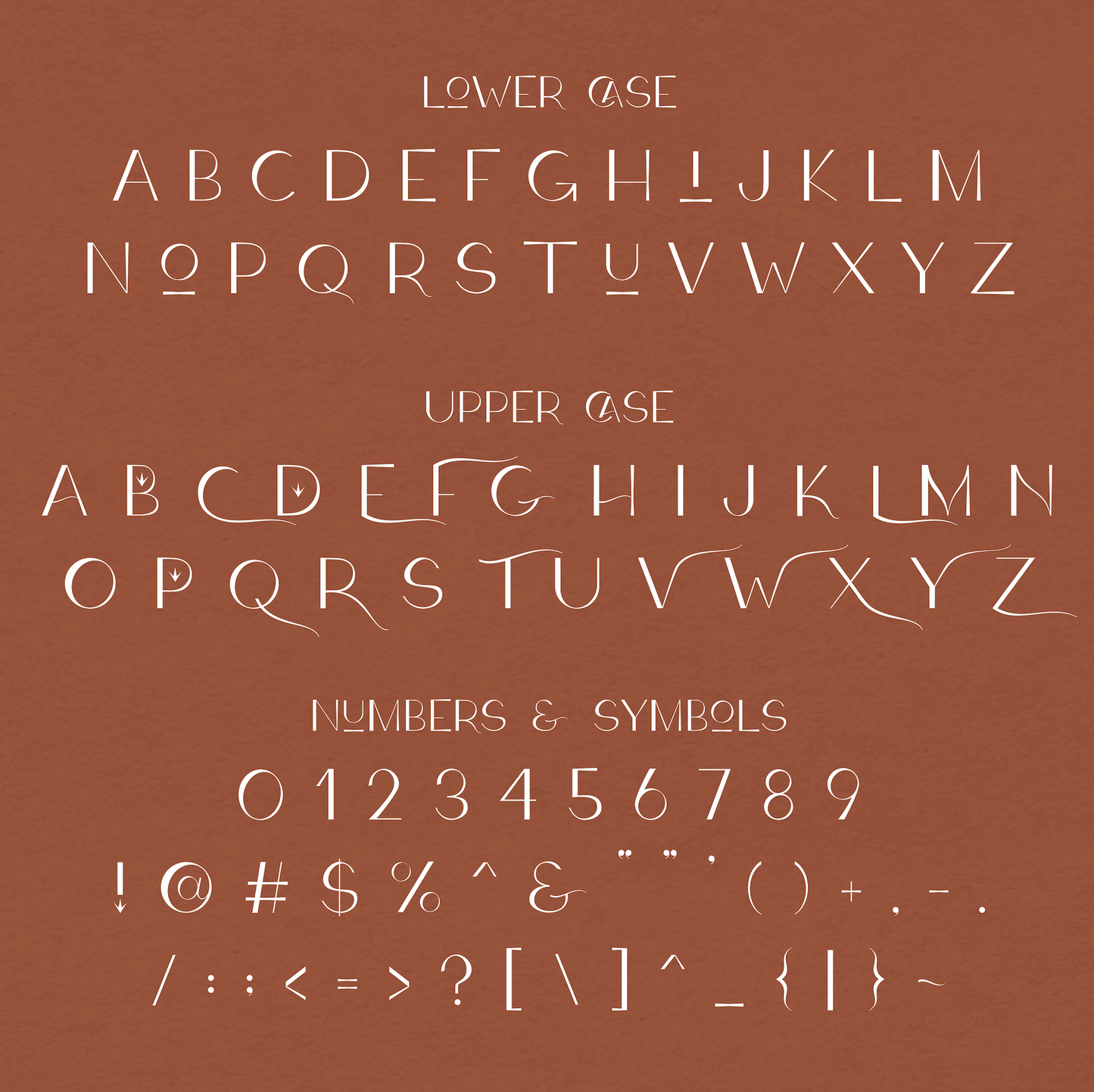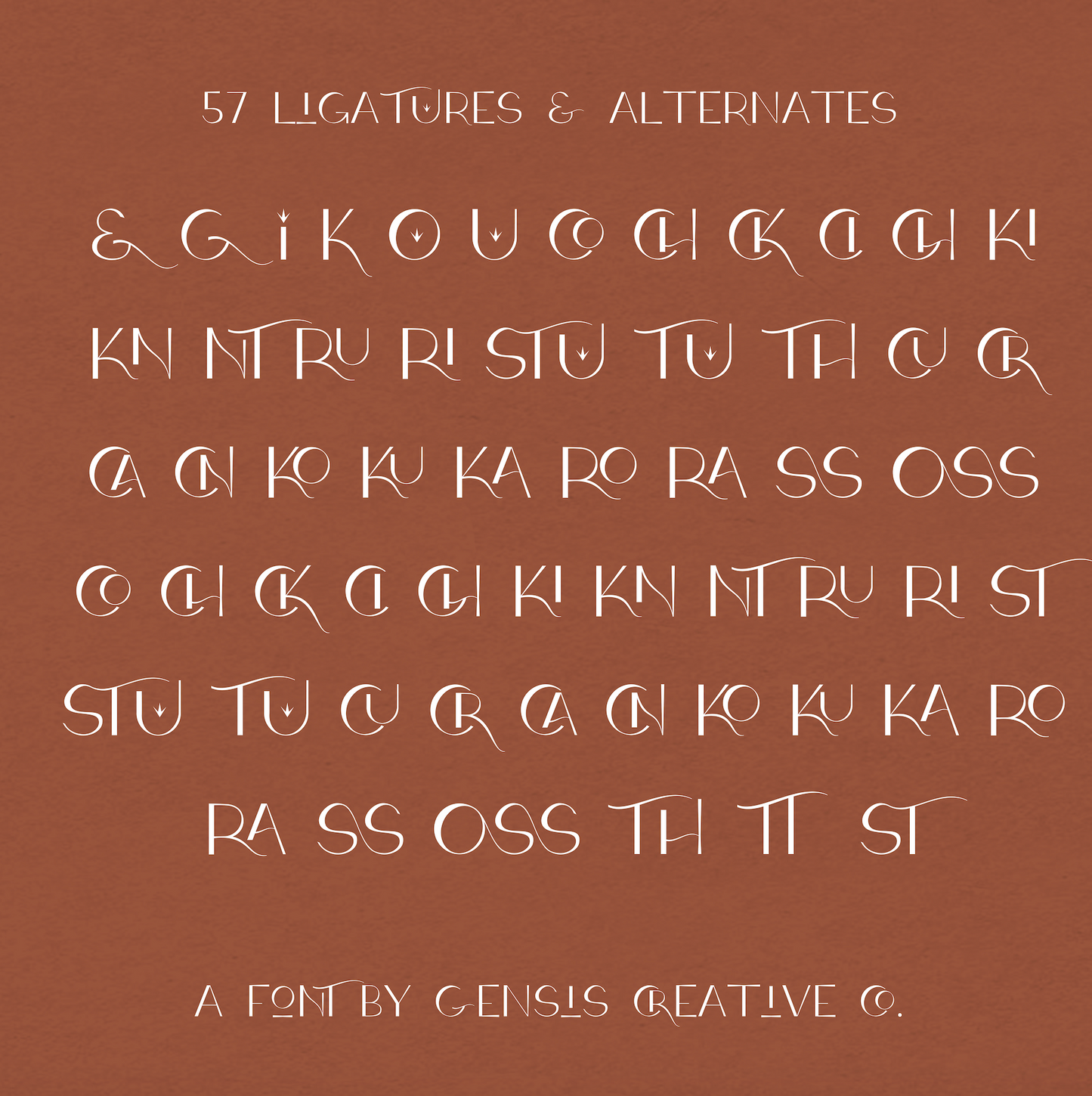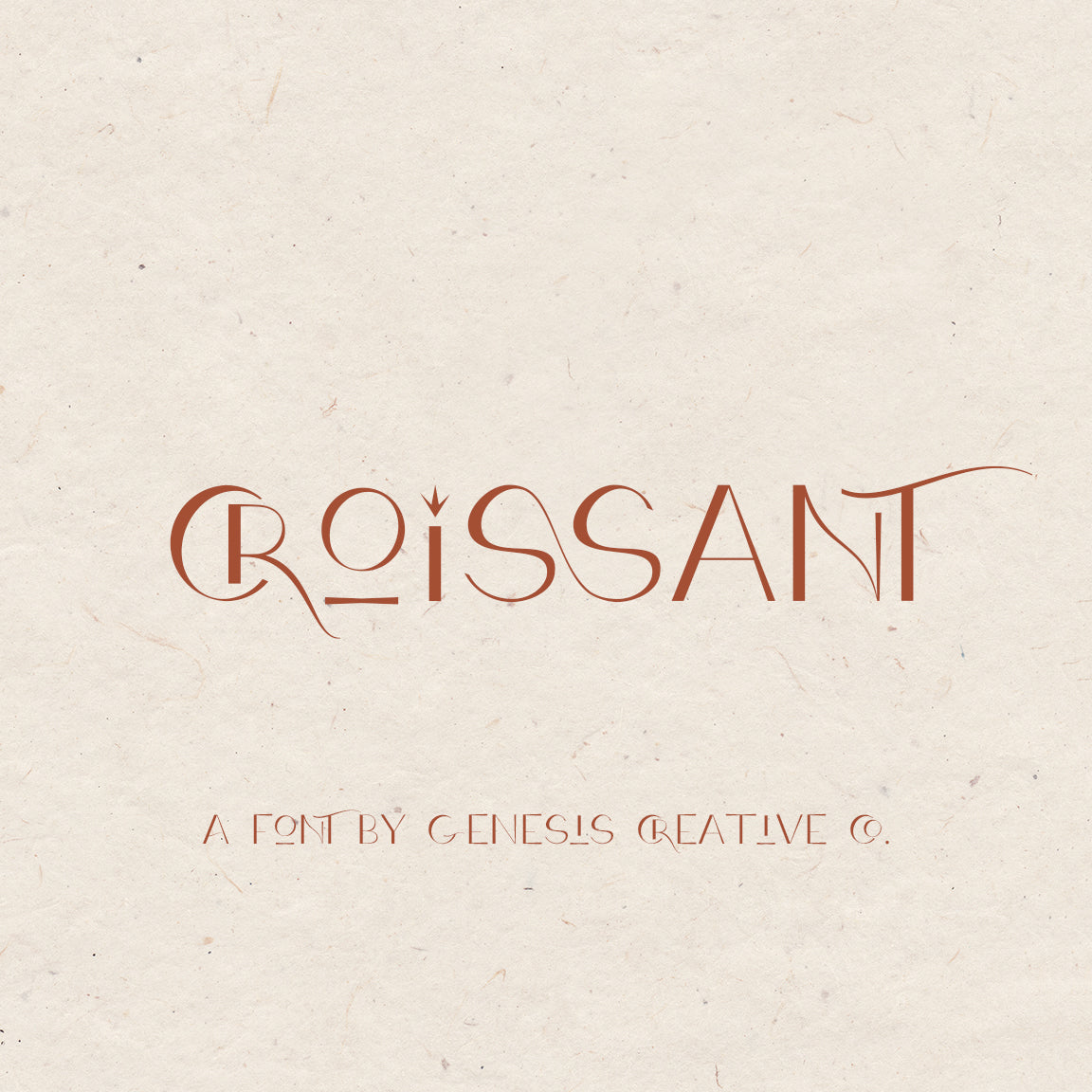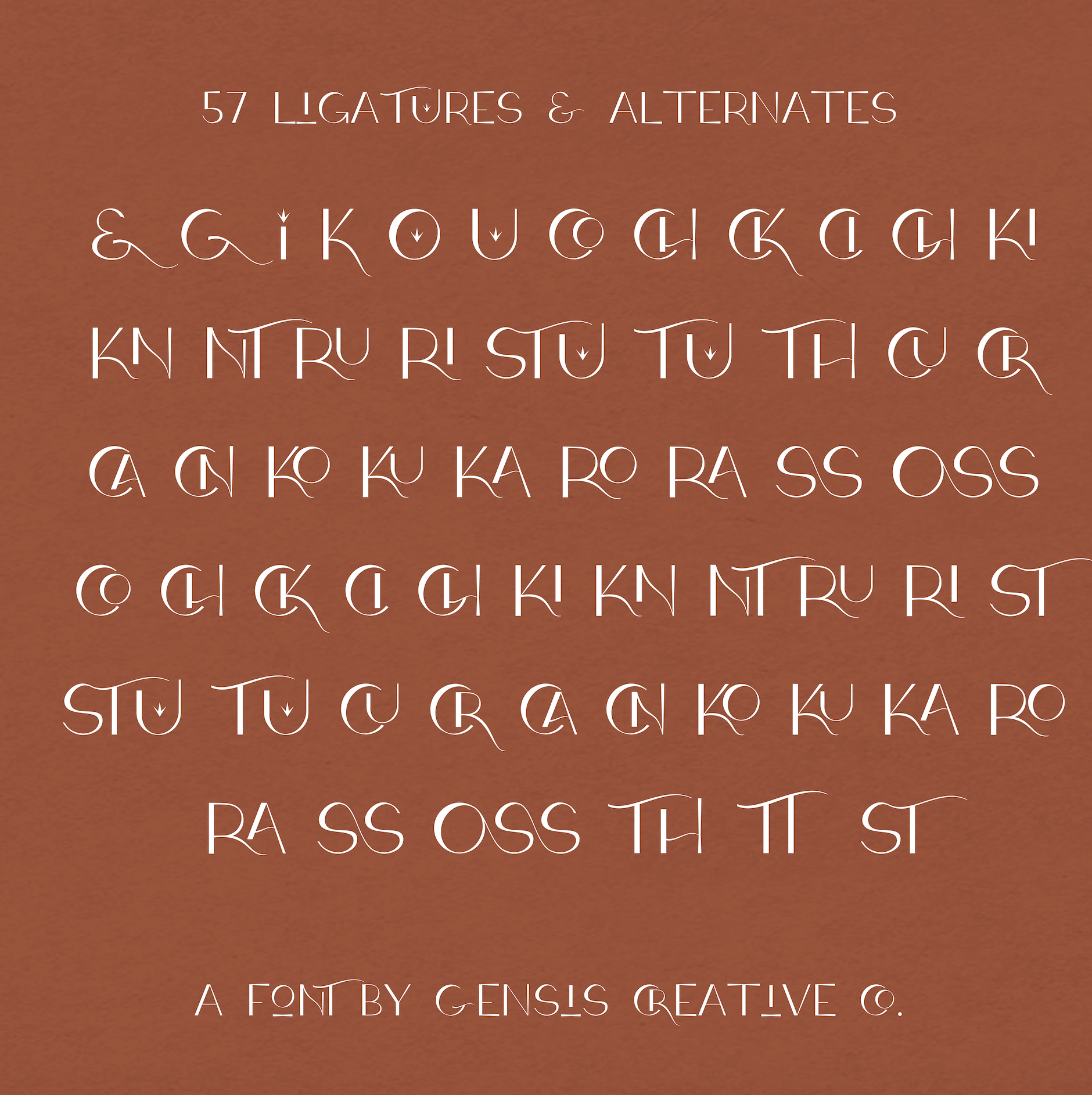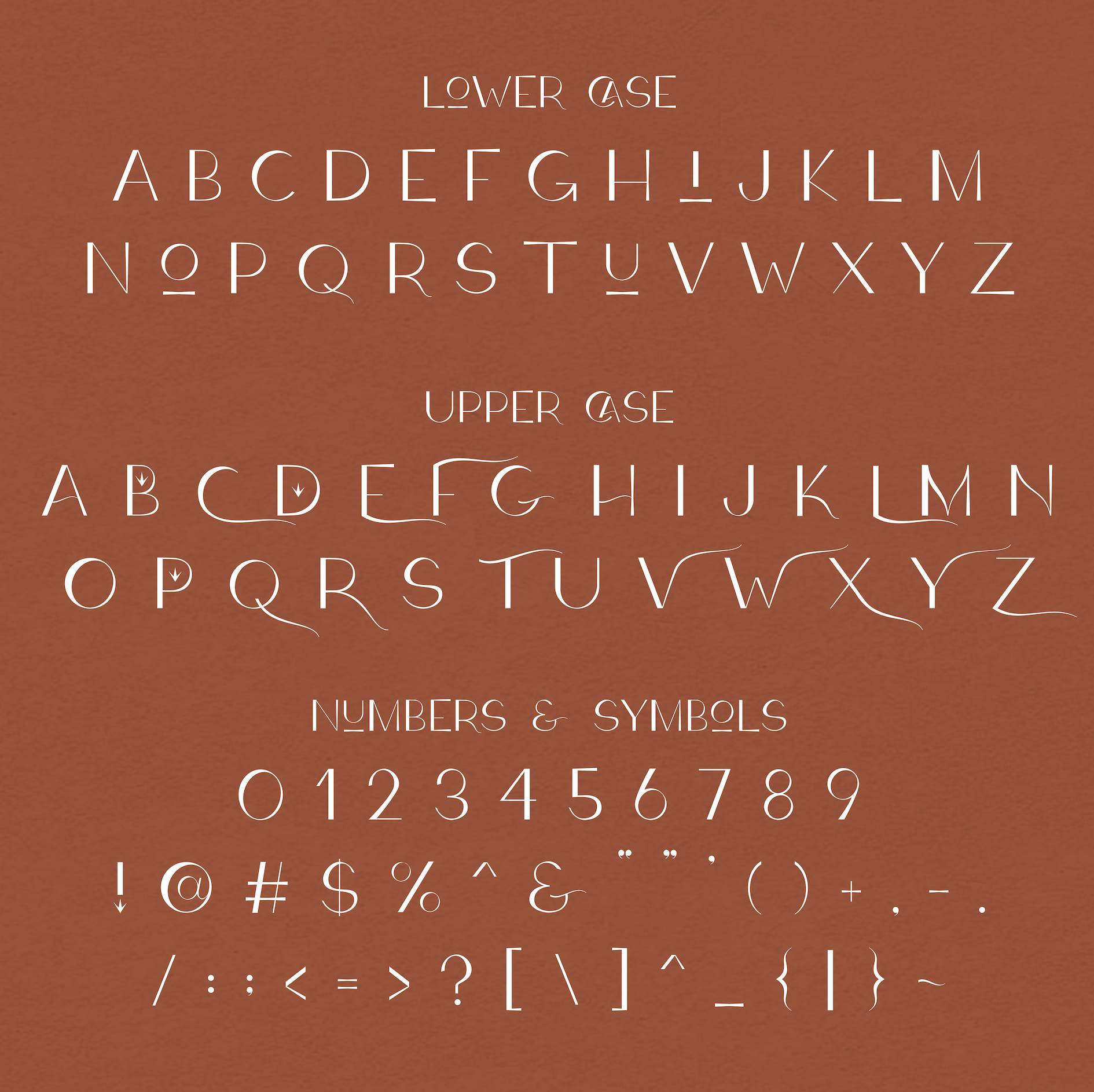
Croissant Font
Croissant is a bespoke, hand-drawn font. This is an all-caps font with ligature options for specific letters and letter combinations. Croissant features swoops, underlines, and graphic elements that instantly elevate your text.